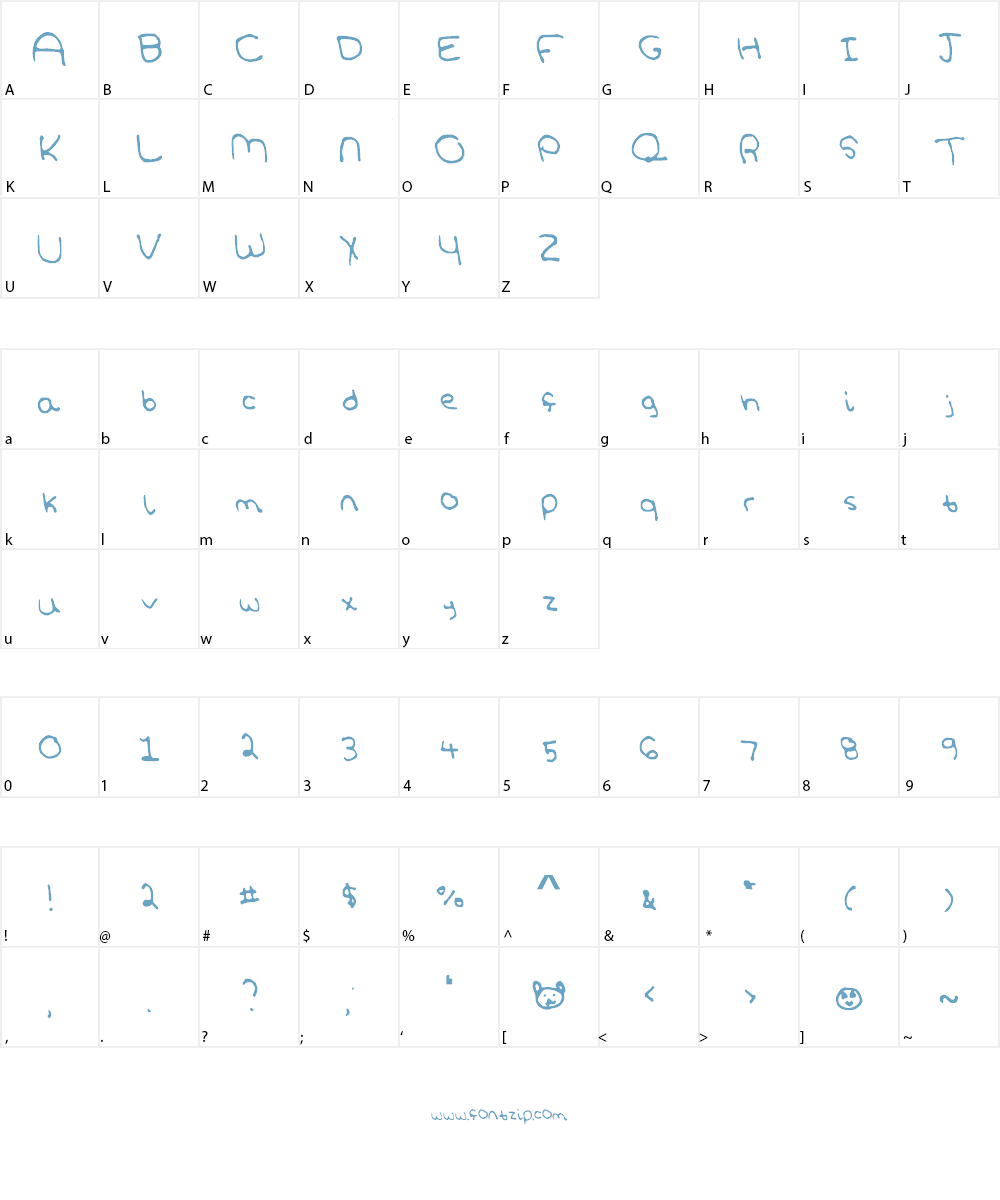
This font was inspired by Babydoll, I love the cuteness, roundness, and smallness of it. I love how it looks like a kid's handwriting and it has a soft look to it.